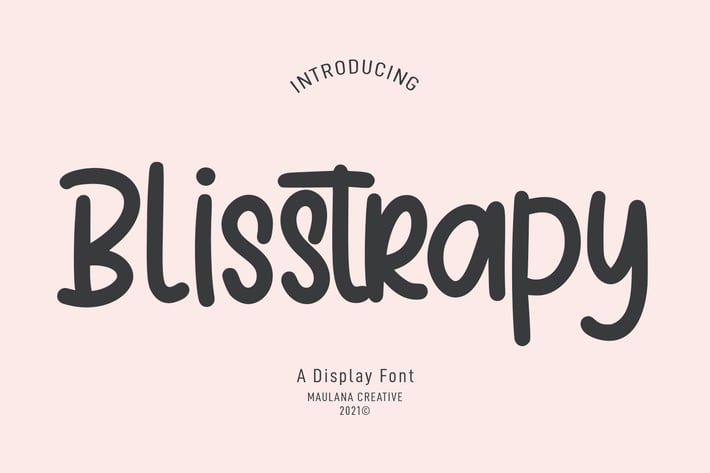
Blisstrapy Monoline Display Font
Blisstrapy is a simply mono-line script font. With bold stroke, upright and fun character with a bit of ligatures. To give you an extra creative work. Blisstrapy font support multilingual more than 100+ language. This font is good for logo design, Social media, Movie Titles, Books Titles, a short text even a long text letter and good for your secondary text font with sans or serif. Make a stunning work with Blisstrapy font.